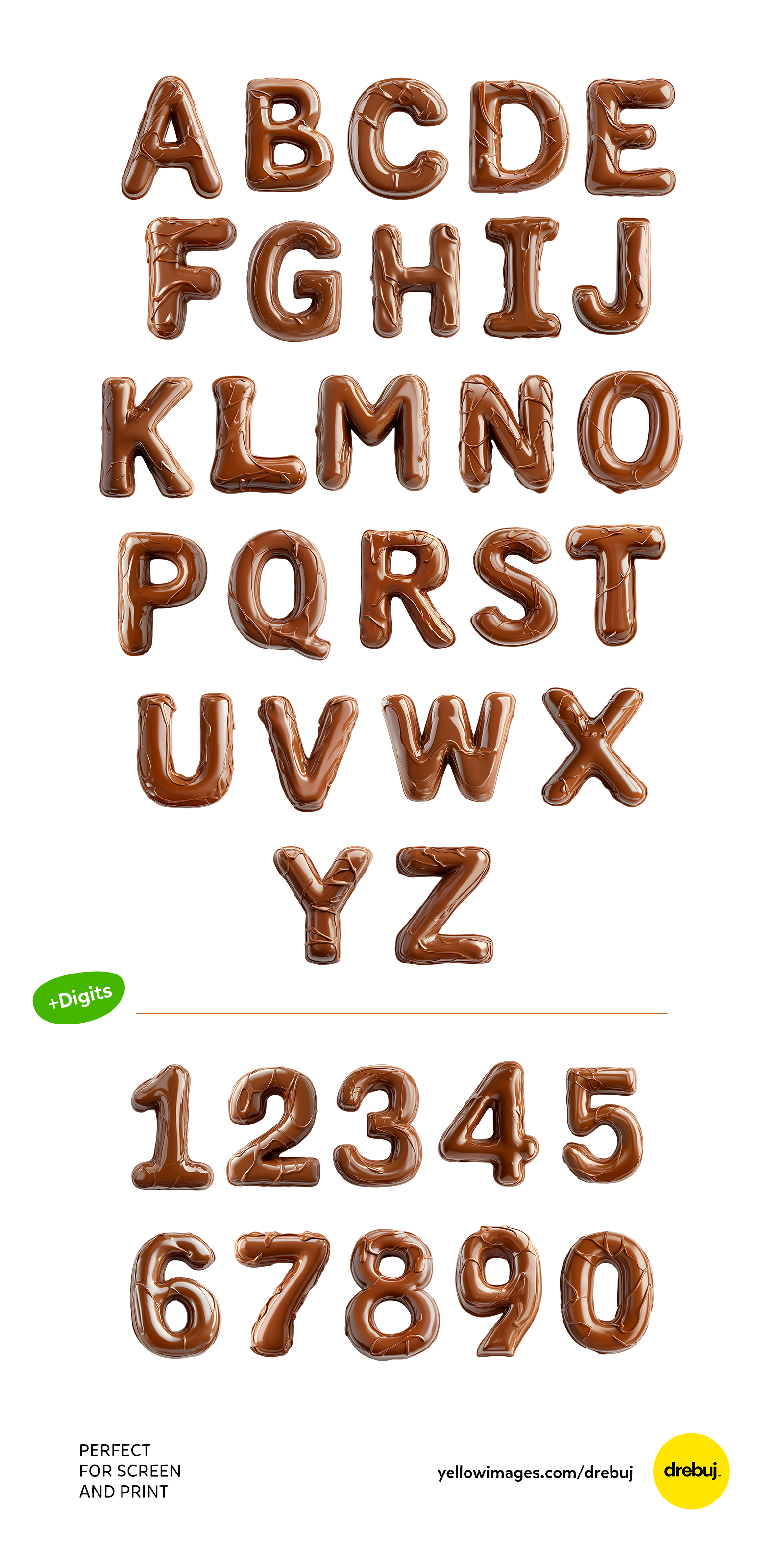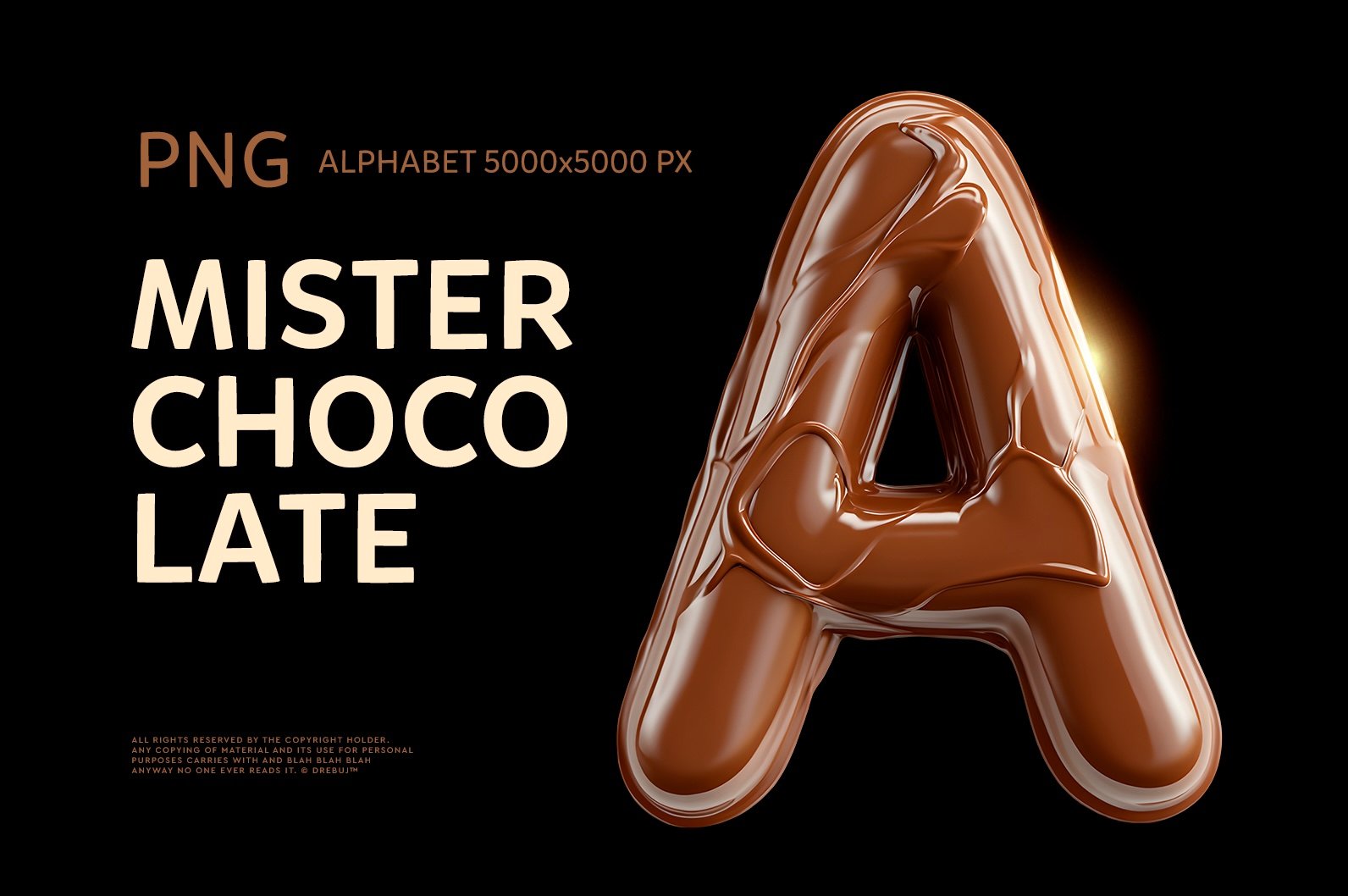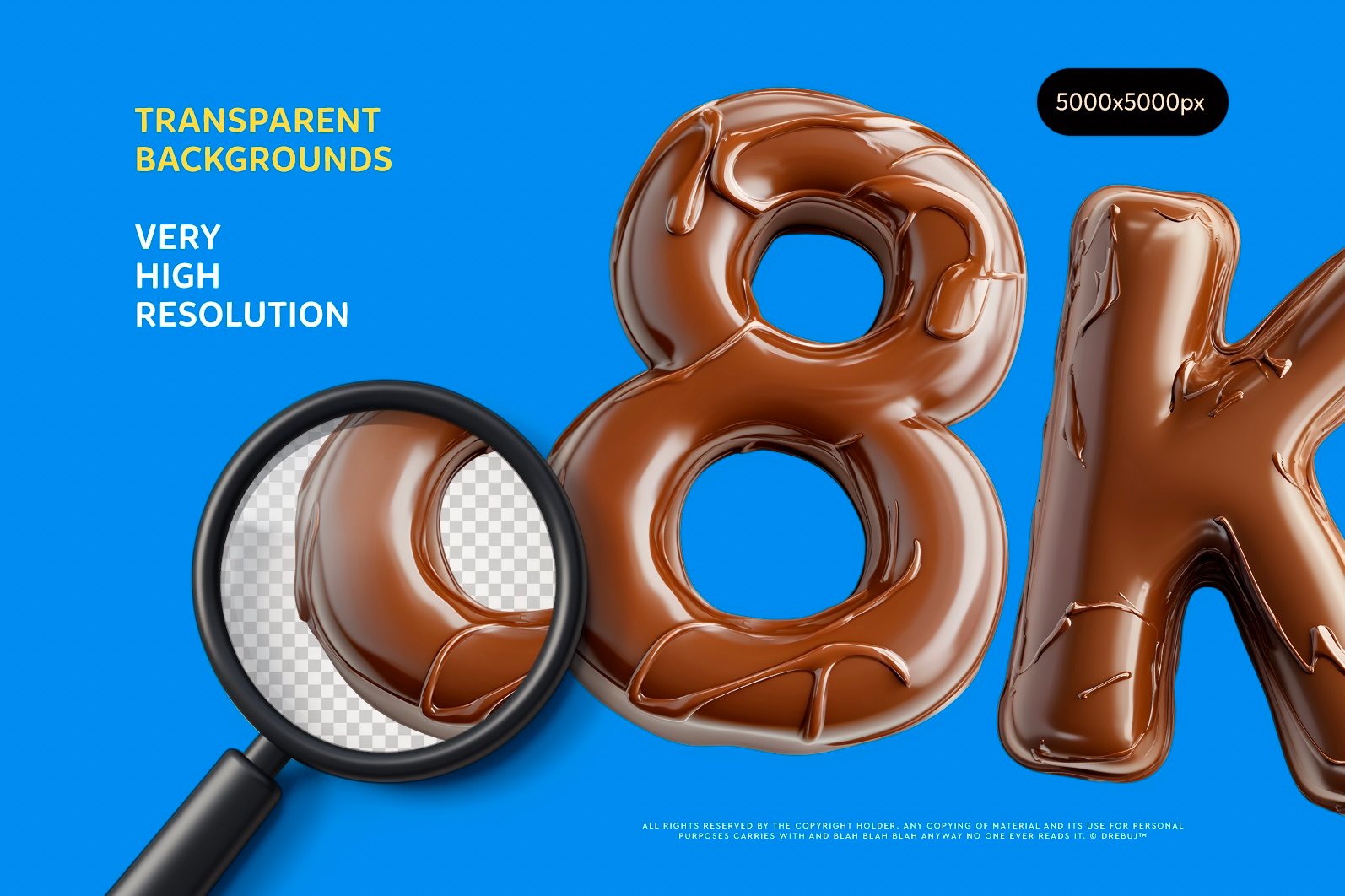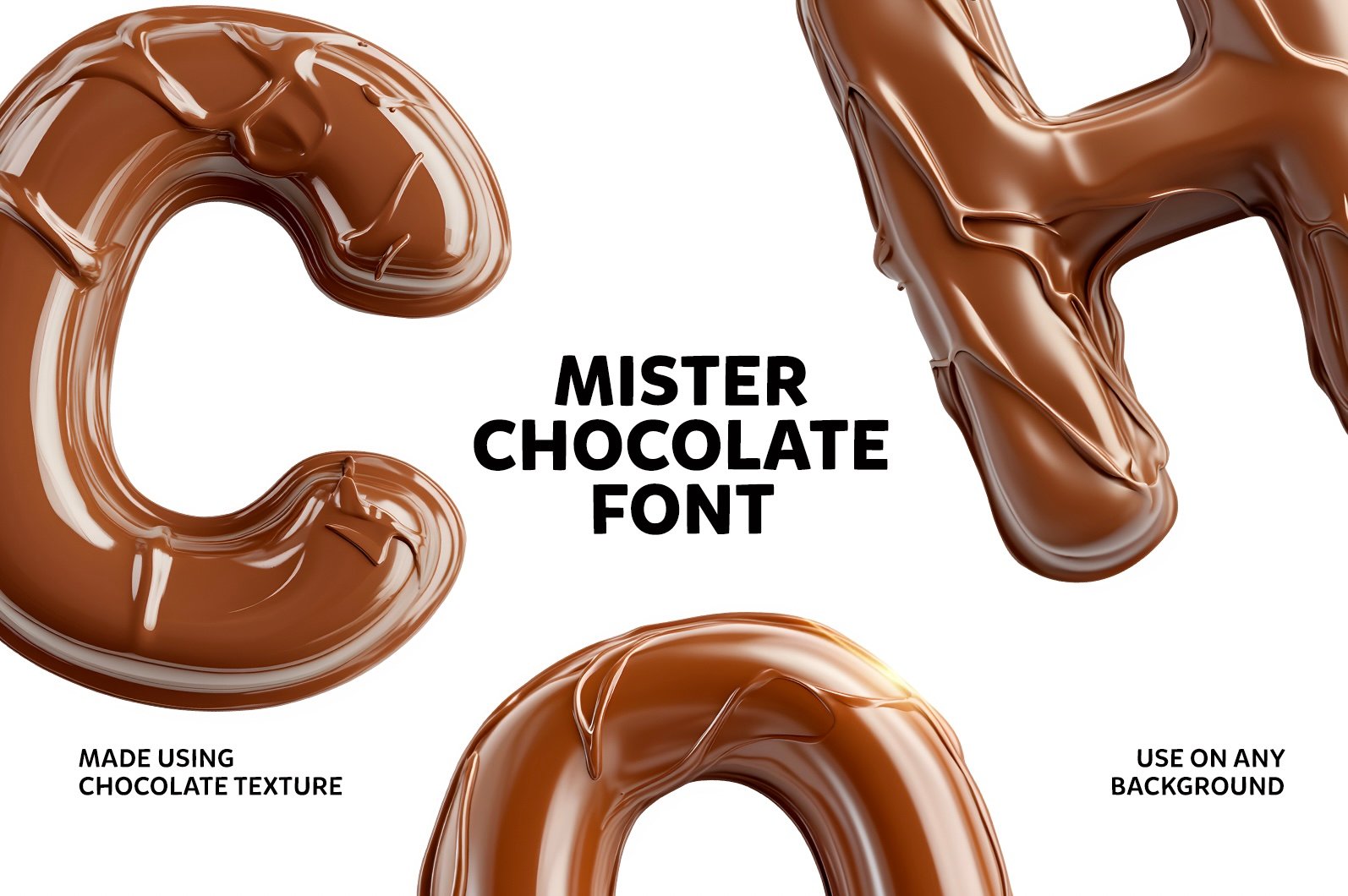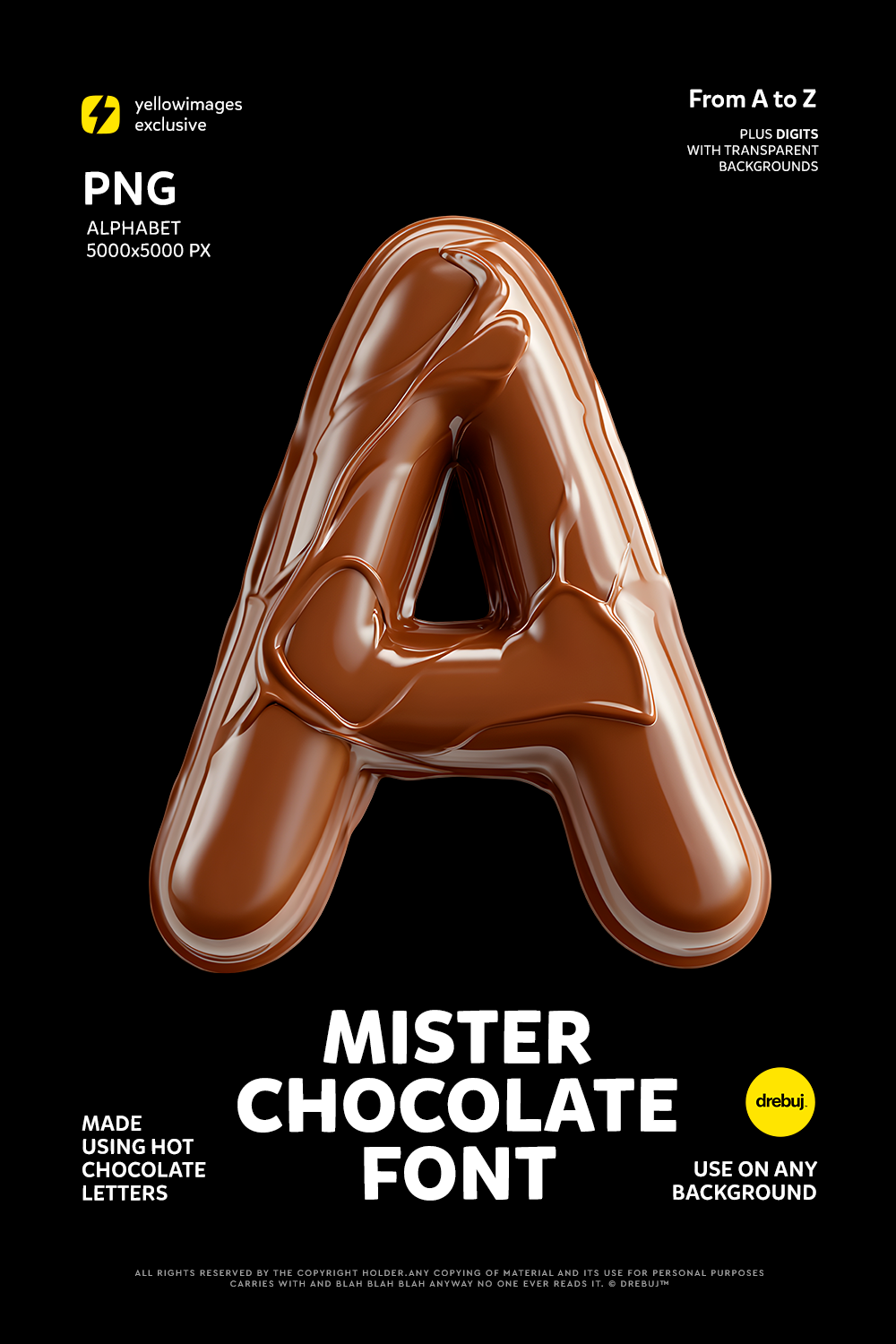
Mister Chocolate Font : Geometric 3D Alphabet PNG
Mister Chocolate Font – Hot Melted Chocolate 3D Alphabet (PNG 5000x5000px)
Treat your typography to a delicious upgrade with the Mister Chocolate Font – a luscious 3D alphabet crafted to look like rich, melted hot chocolate. Smooth, glossy, and irresistibly realistic, this font is perfect for dessert branding, packaging, and fun visual projects.
? A–Z uppercase letters + numbers
? Mouthwatering texture with creamy reflections and melted flow
? Great for bakery logos, sweet product ads, kids' projects & social media
✨ Perfect for designers who want their text to look good enough to eat.
An entire alphabet of HOT CHOCOLATE letters with transparent background.
THIS IS NOT A FONT. This is a very high-quality 3d PNG font of CHOCOLATE texture letters.